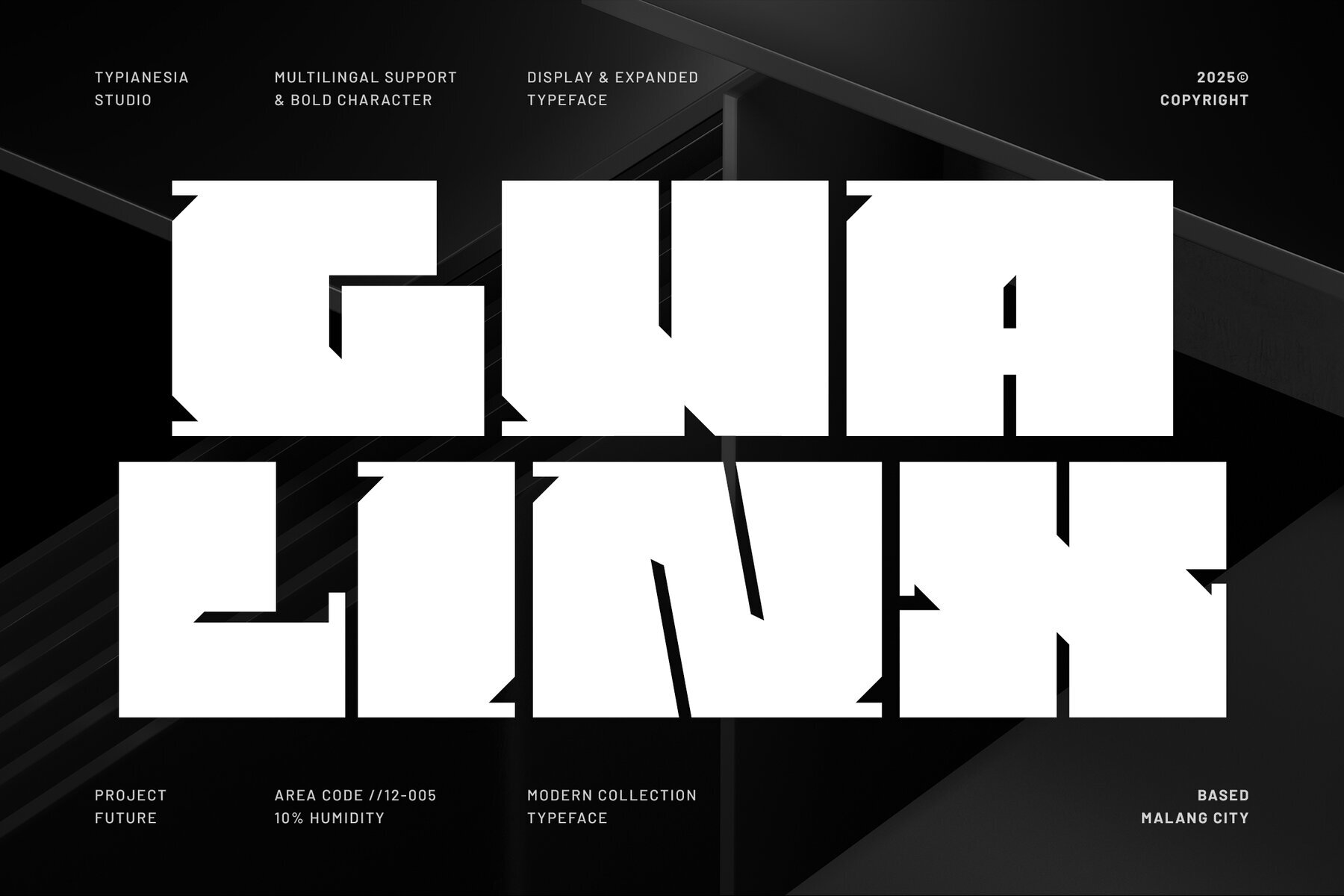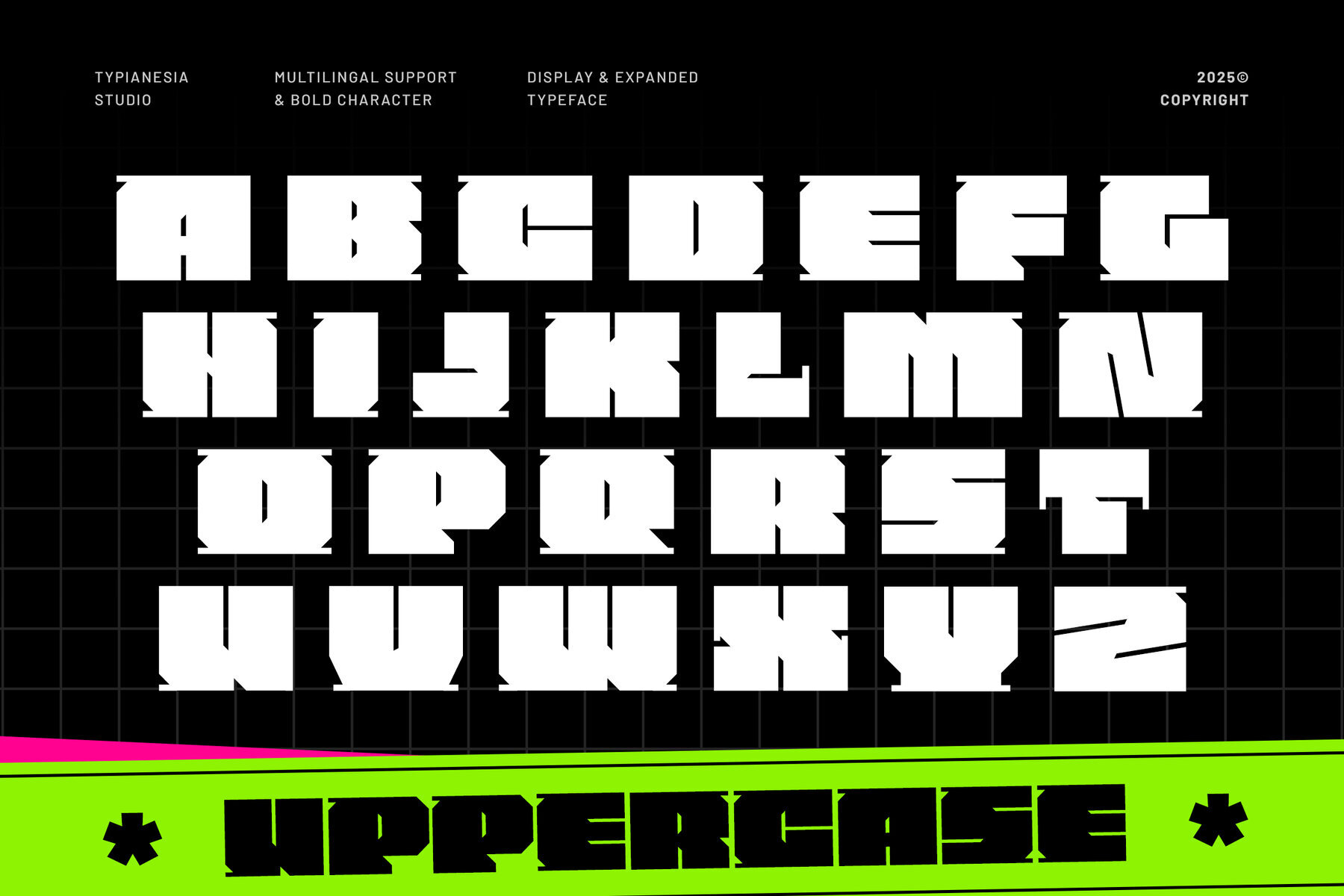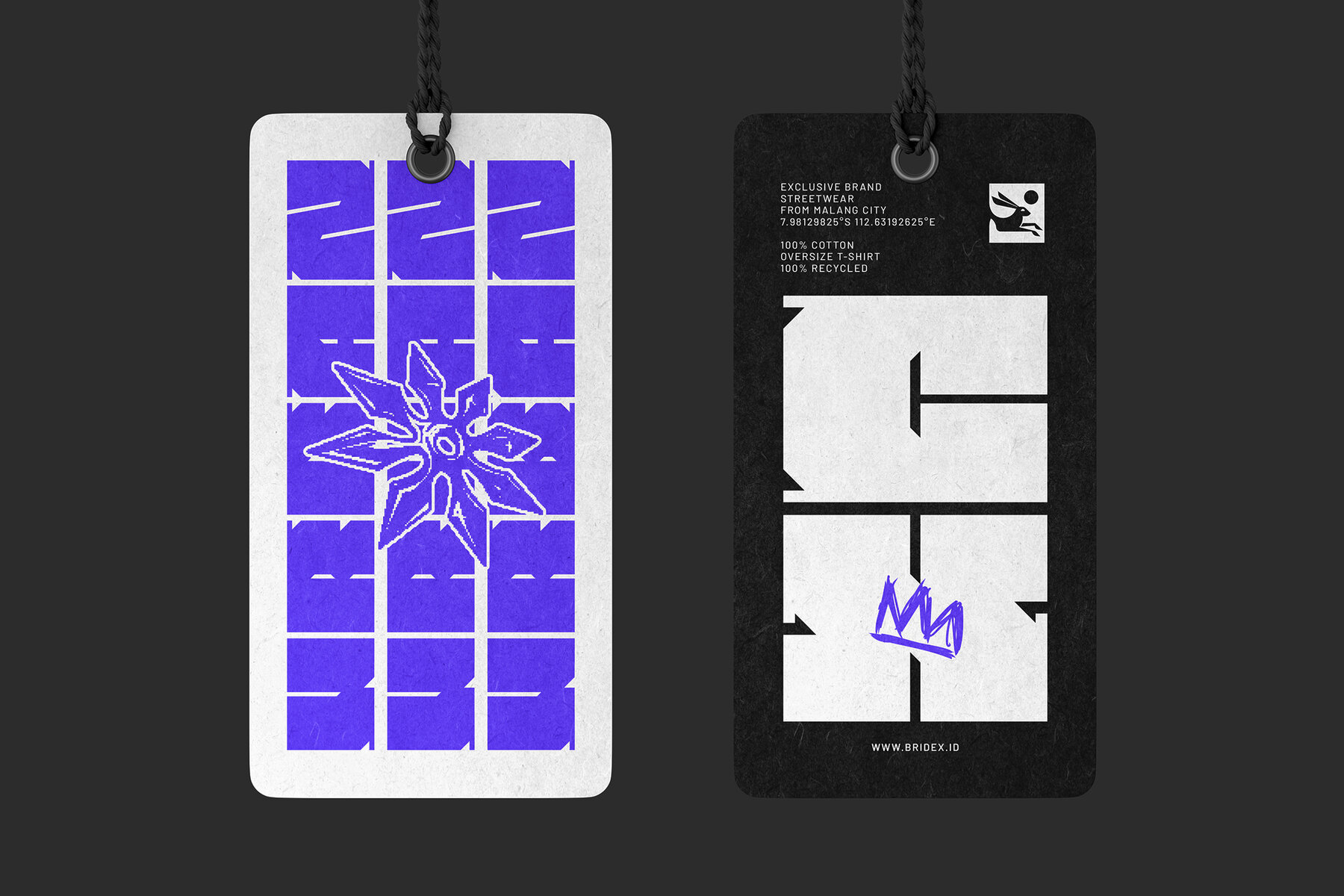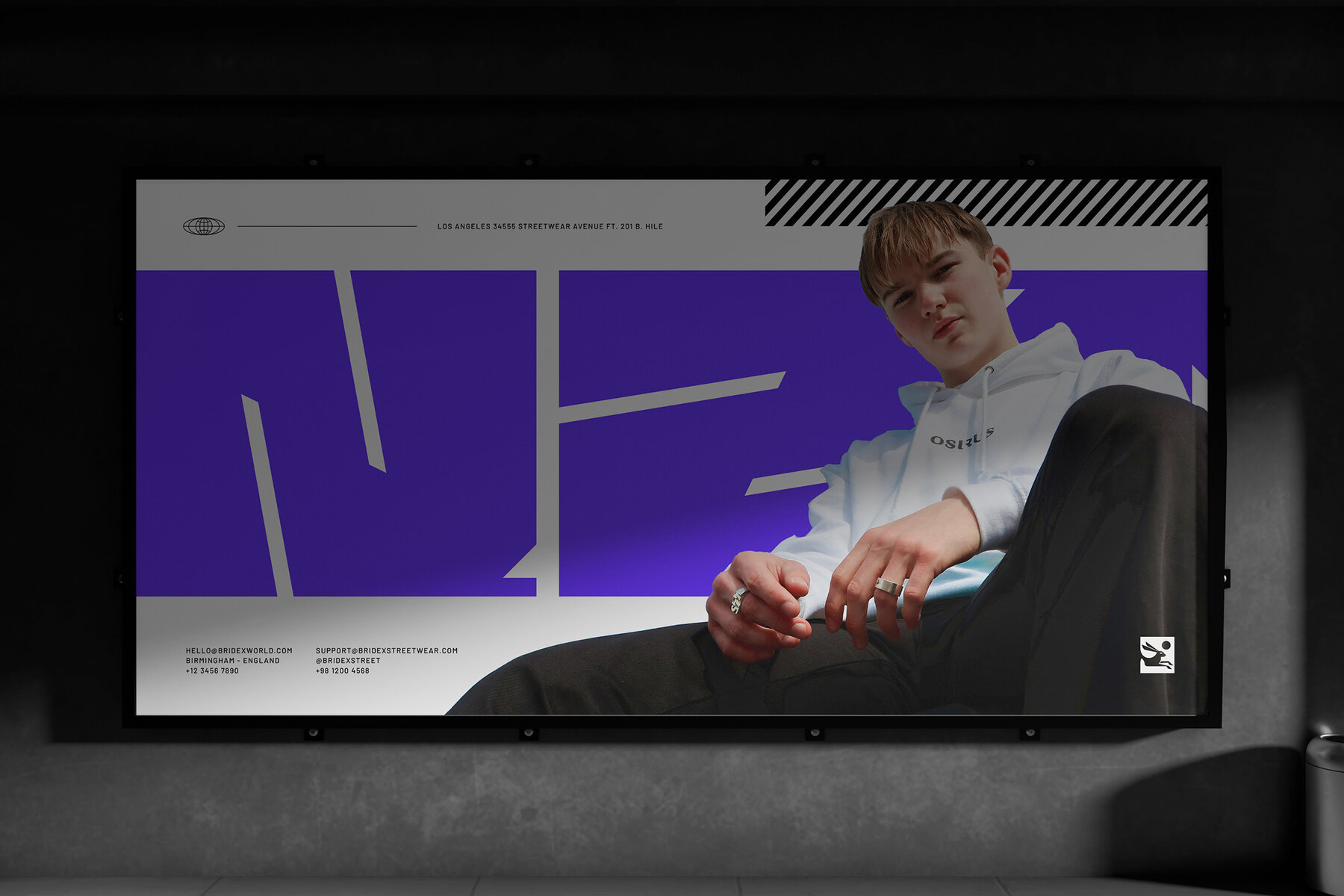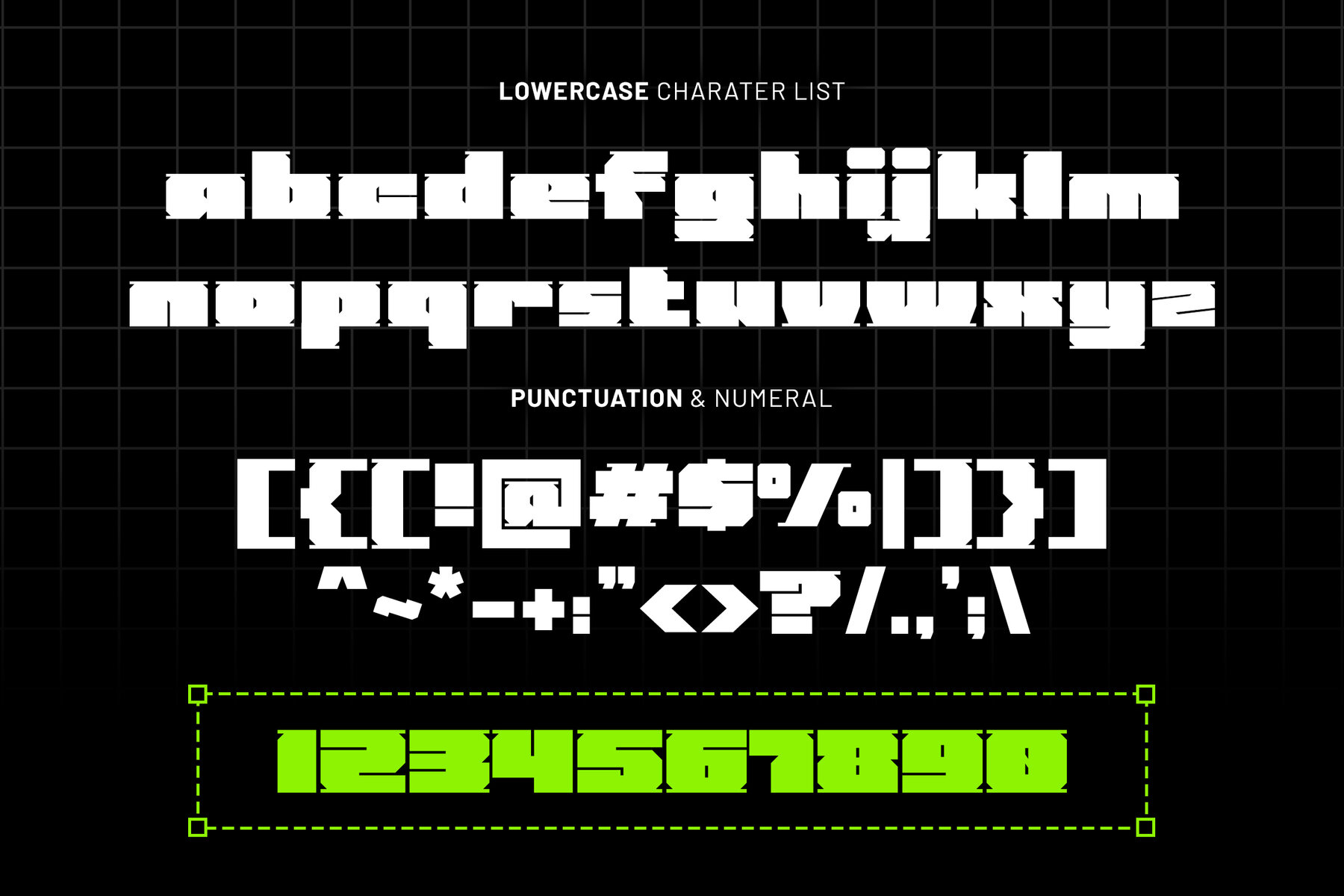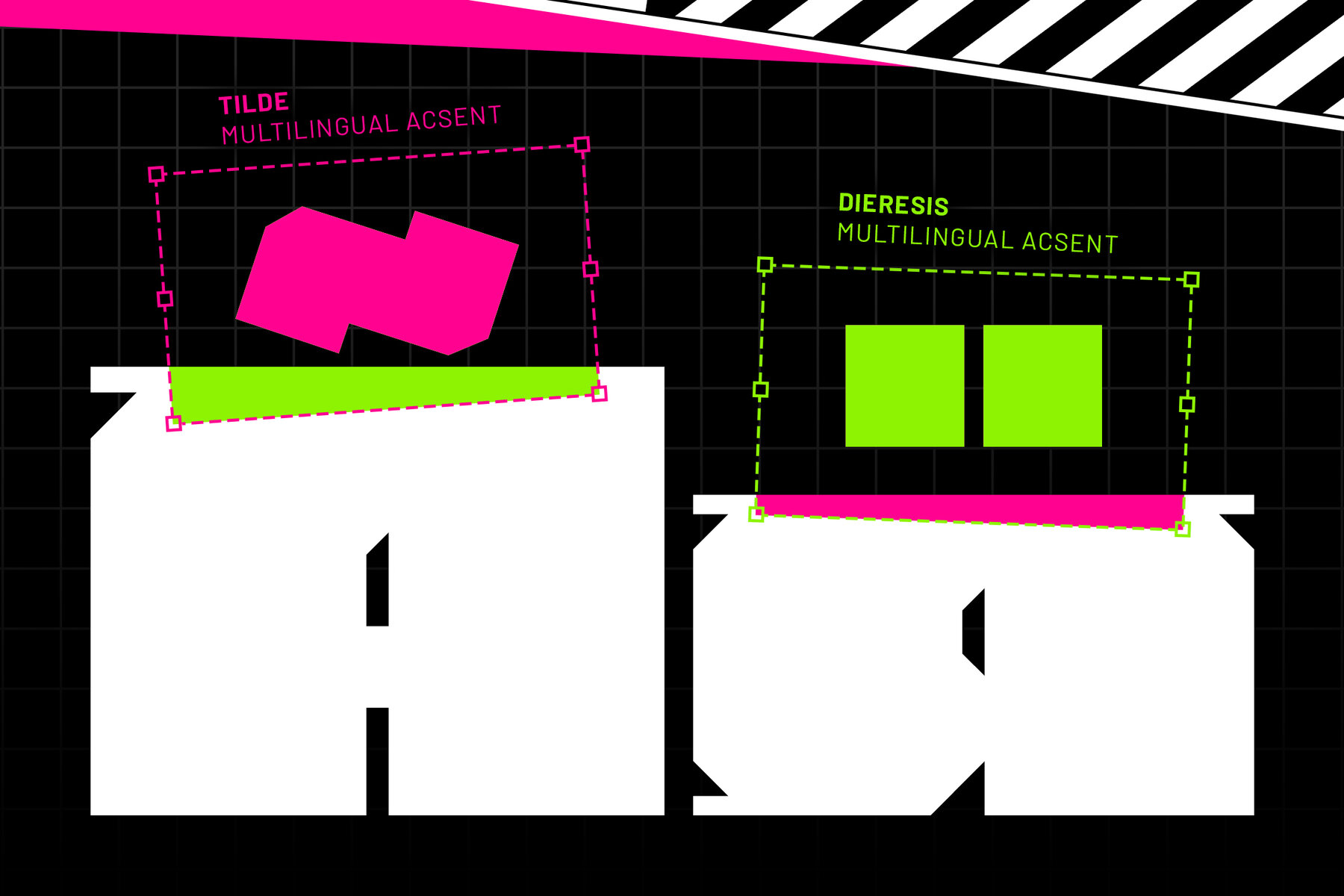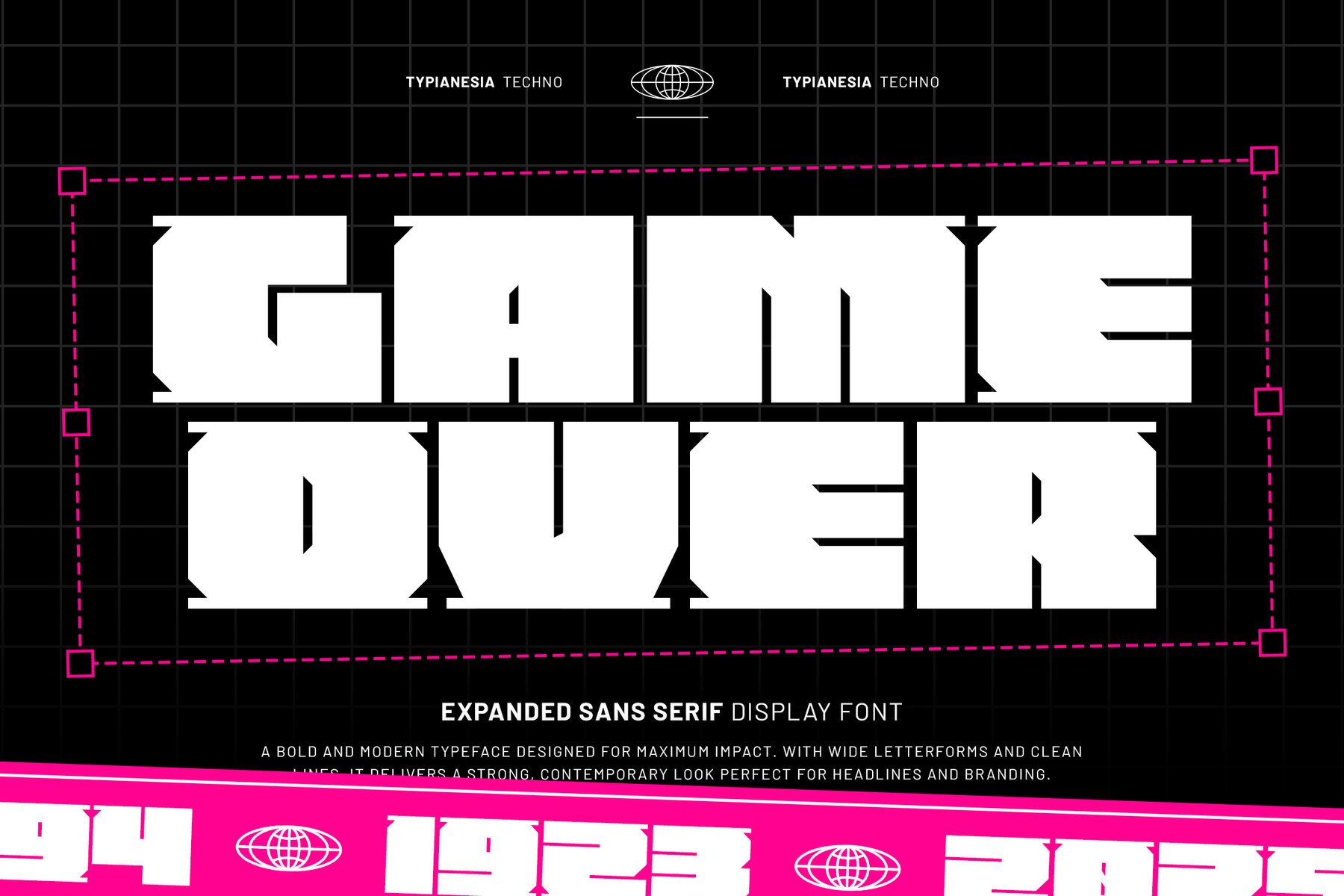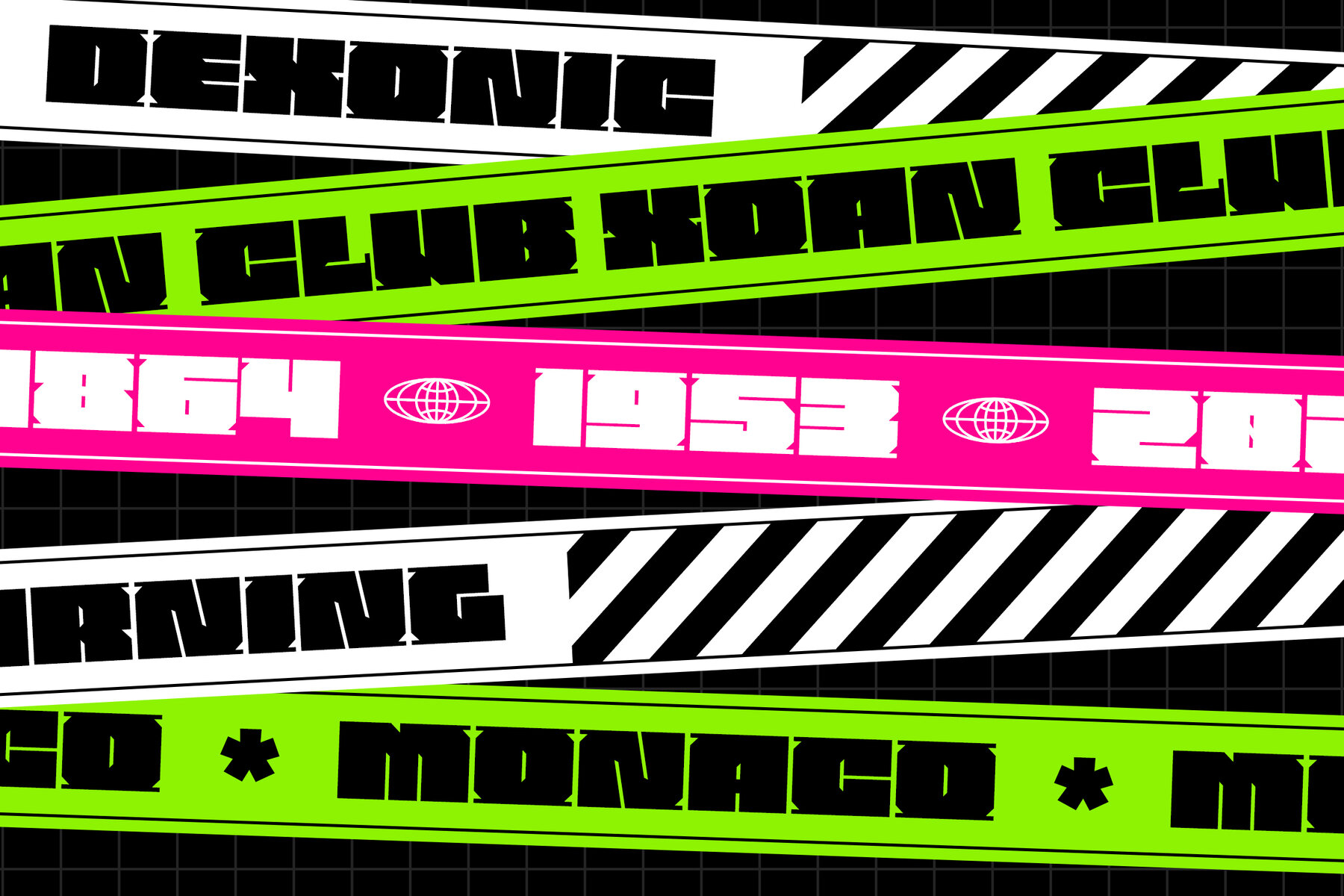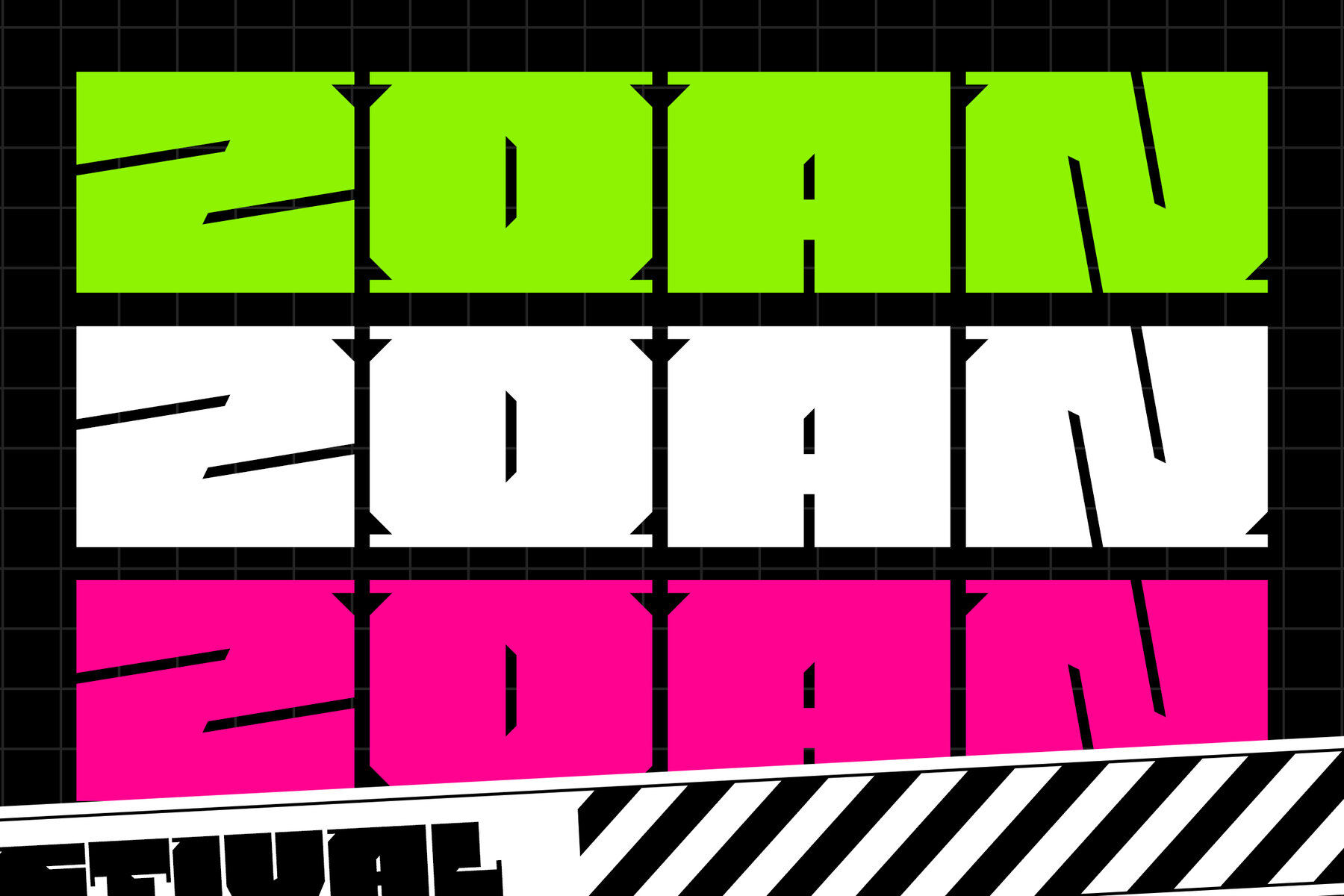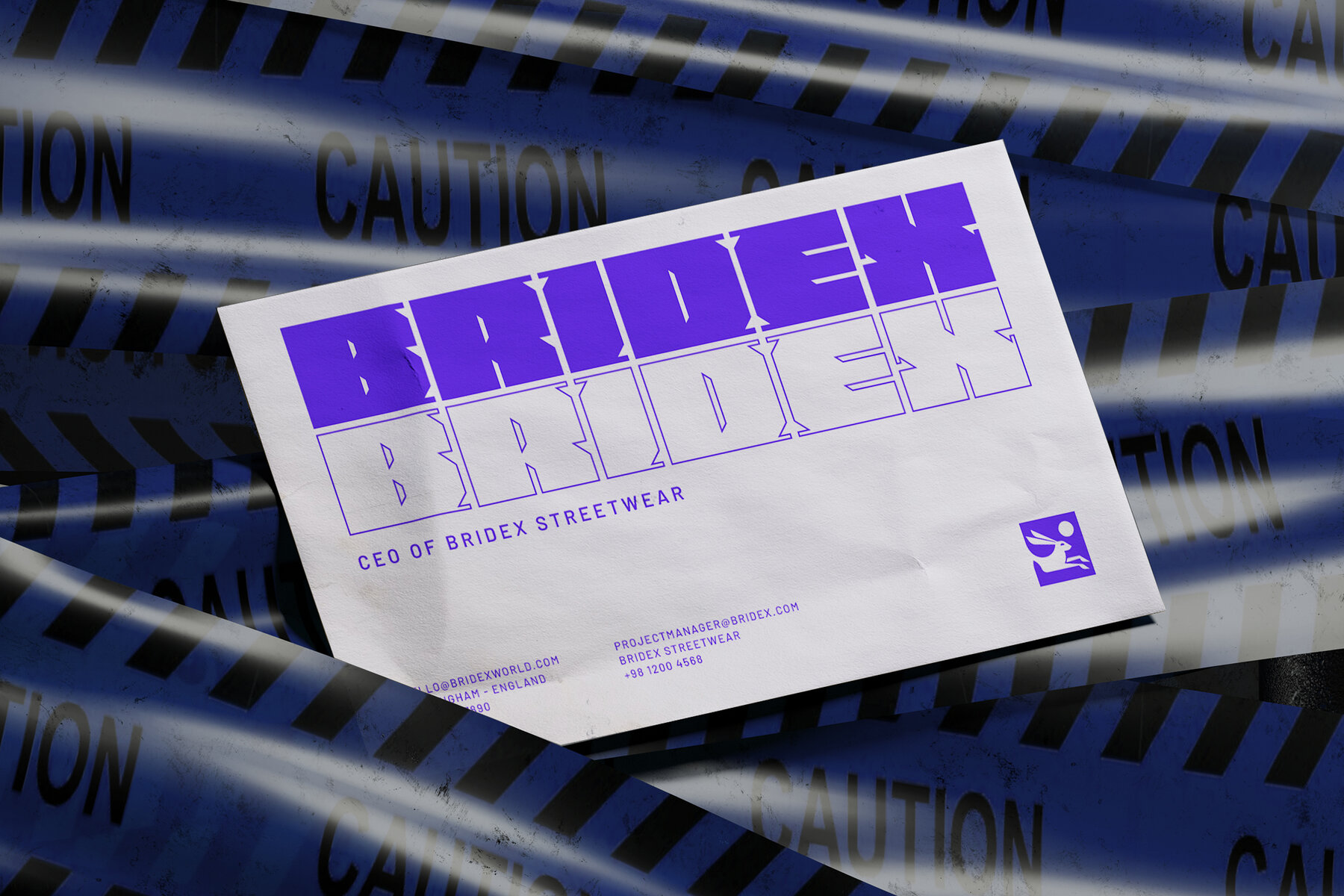
Gualinx Font
Gualinx Regular
Discover the striking allure of Gualinx, a modern, bold, and expanded sans serif typeface infused with a geometric edge and dynamic ink trap details. Designed for high-impact visibility, this font commands attention and is a perfect fit for standout headlines, impactful logos, and dynamic festival promotions. Its expanded width and bold structure make it an ideal choice for urban and sports branding, game titles, poster campaigns, and innovative advertising. With a hint of technology and space, Gualinx ensures your brand stays ahead of the curve. Experience the power of this typeface and make your message unforgettable across web and print platforms.Gualinx: Modern Expanded Bold Sans Serif Font